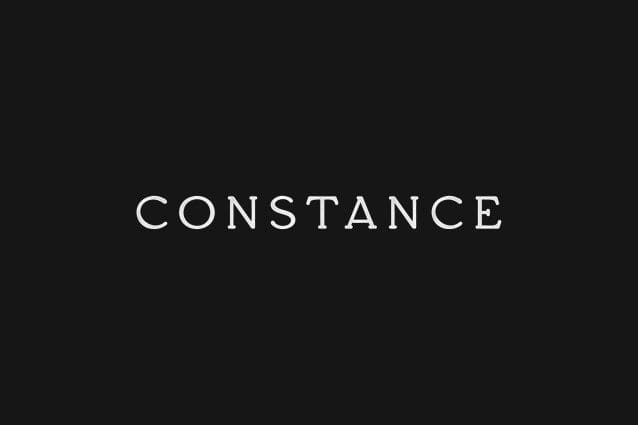
Constance Serif Font
Constance Serif Font, is an elegant and versatile font that will make your typography truly unique! It will enchant every logo, branding, headline, or plain text!